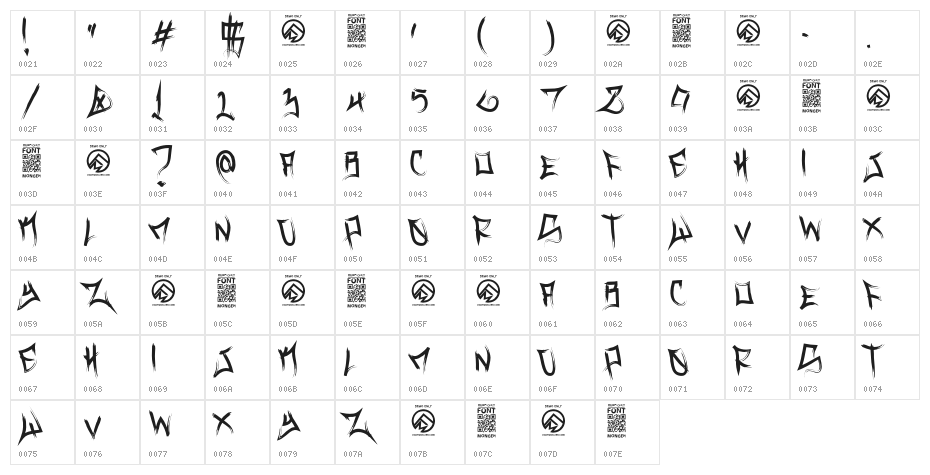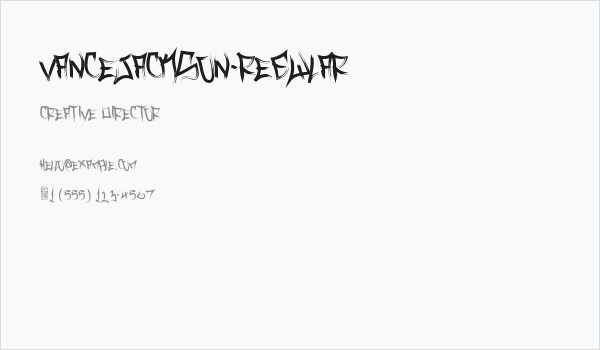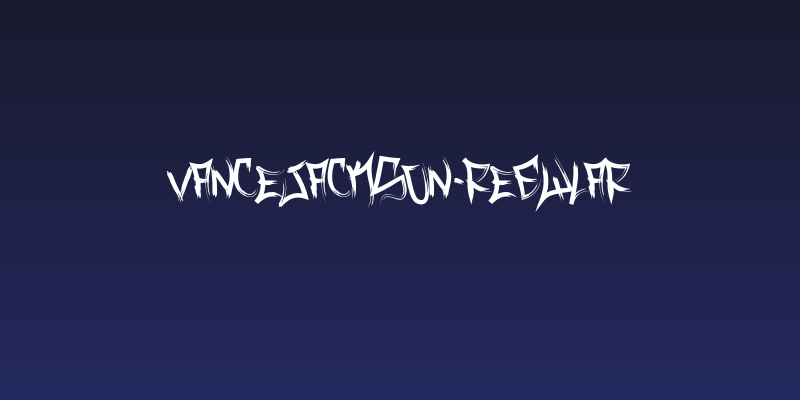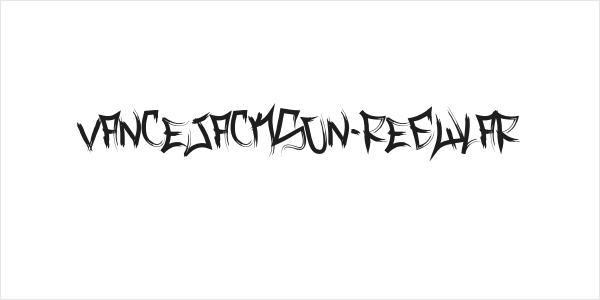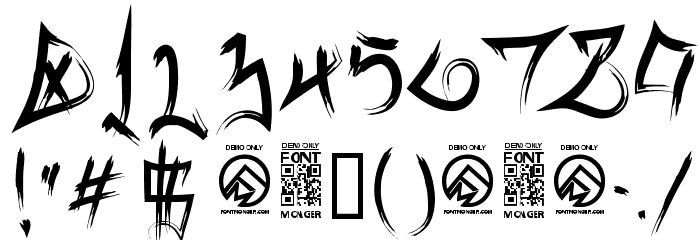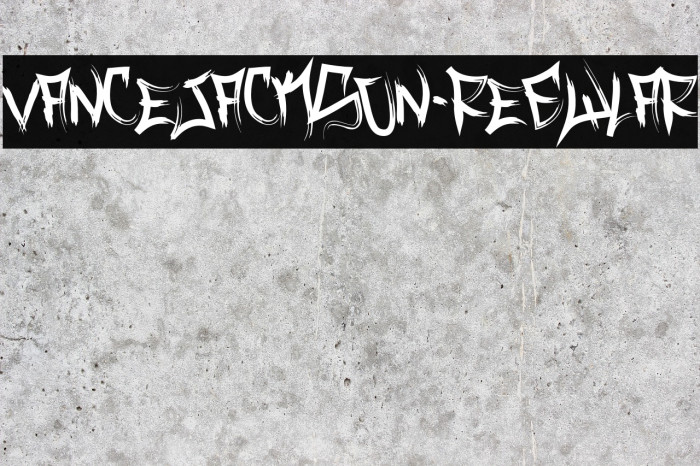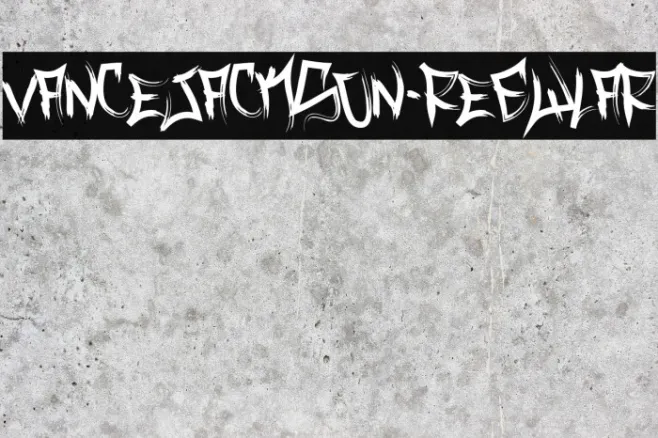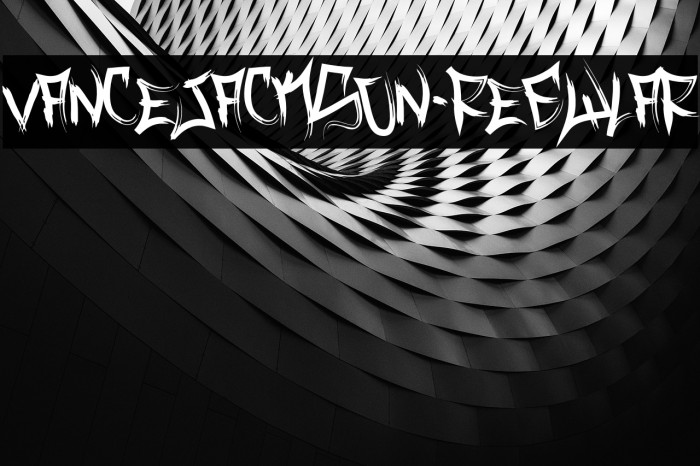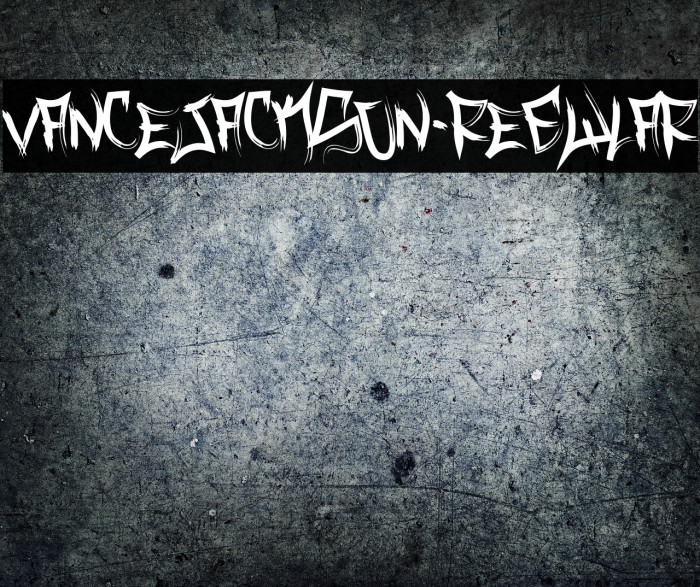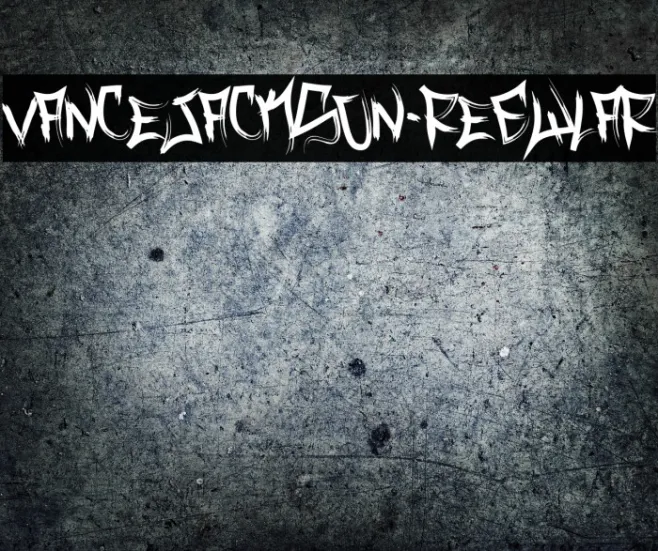
VanceJackson-Regular Font
VanceJackson-Regular Description
This font features a highly stylized and edgy design, characterized by sharp, angular lines and a dynamic, brush-like appearance. The letters are bold and dramatic, with a sense of movement and energy that makes them stand out. Each character is uniquely crafted, with varying stroke thicknesses that add to the overall visual impact. The font's design is reminiscent of graffiti or street art, giving it a rebellious and modern feel. It is well-suited for projects that require a bold statement or an unconventional aesthetic.
| Proposed Projects | Ideal for album covers, streetwear branding, event posters, and any project seeking a rebellious, modern aesthetic. |